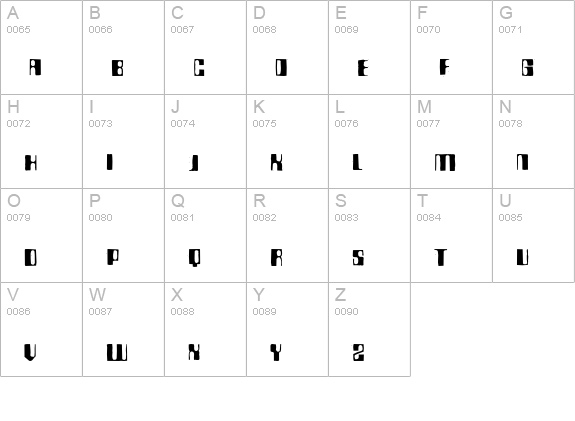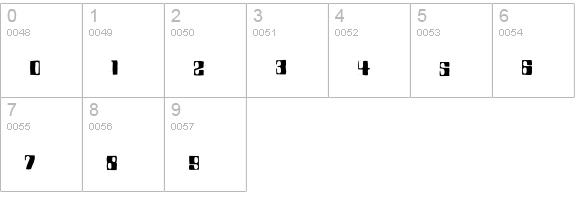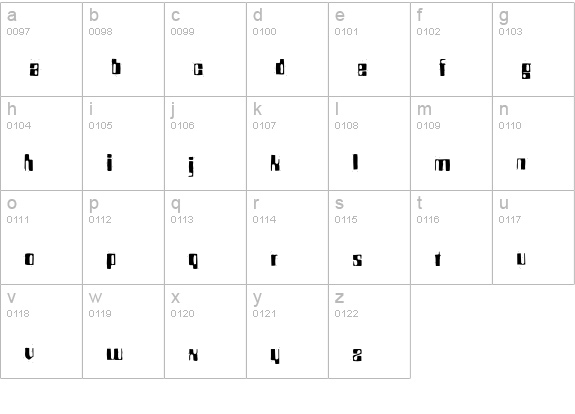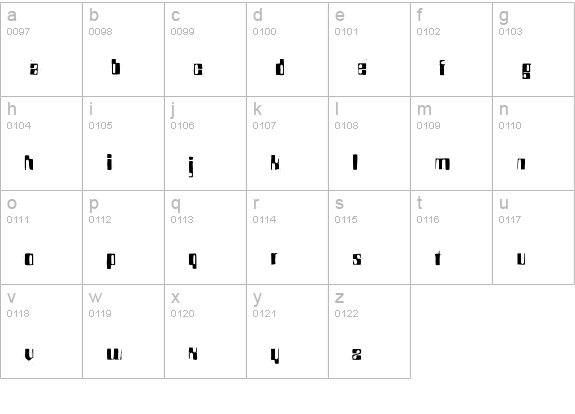
Rocket70 Font Details
Rocket70 font is a modern and sleek typeface that exudes a sense of boldness and innovation. With its clean lines and sharp angles, this font is perfect for creating eye-catching designs that demand attention. The geometric shapes and futuristic vibes of Rocket70 make it ideal for projects that require a contemporary feel. The best part about Rocket70 font is that it is completely free to download at FontsMarket.com. Whether you are working on a branding project, website design, or any other creative endeavor, Rocket70 font will add a touch of sophistication and style to your work. So why wait? Download Rocket70 font today and take your designs to the next level!